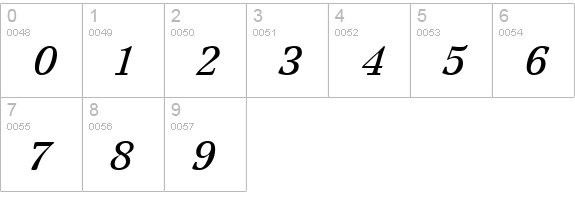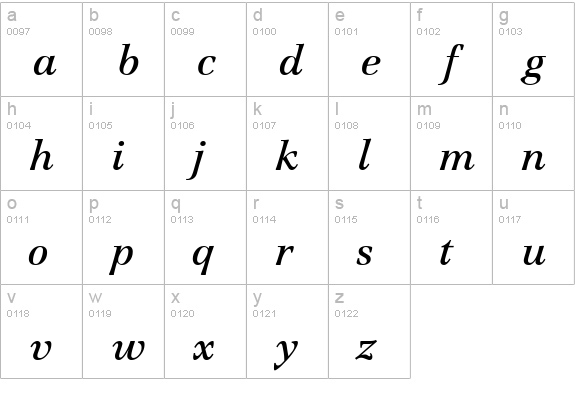
Jamille Italic Font Details
Jamille Italic is a distinctive, italic variant in the Jamille typeface family \xE2\x80\x94 well suited to design and typography projects.
Introducing Jamille Italic, a breathtakingly beautiful font that effortlessly blends elegance and modernity. This exquisite typeface captivates with its delicate curves, graceful strokes, and a touch of sophistication that instantly adds a touch of class to any design project. Jamille Italic offers a unique and stylish take on traditional calligraphy, making it the perfect choice for those seeking a font that stands out from the crowd. Its flowing lines and intricate details create a sense of timeless grace, making it ideal for wedding invitations, branding materials, and editorial designs. What sets Jamille Italic apart is not just its stunning aesthetic, but also its versatility. This font is equally at home in both formal and informal contexts, effortlessly adapting to any design concept you have in mind. Whether you're looking to create a luxurious logo, a romantic invitation, or a sophisticated website, Jamille Italic has got you covered. And the best part? Jamille Italic is available for free download at FontsMarket.com. Yes, you read that right – this exceptional font can be yours without spending a single penny. FontsMarket.com is a trusted and reliable source for high-quality fonts, and Jamille Italic is just one of the many gems you'll find in their extensive collection. So why wait? Elevate your designs to new heights with Jamille Italic. Download it for free today and let its timeless beauty and elegance become an integral part of your creative journey. Unleash your imagination and let Jamille Italic breathe life into your projects, leaving a lasting impression on your audience.